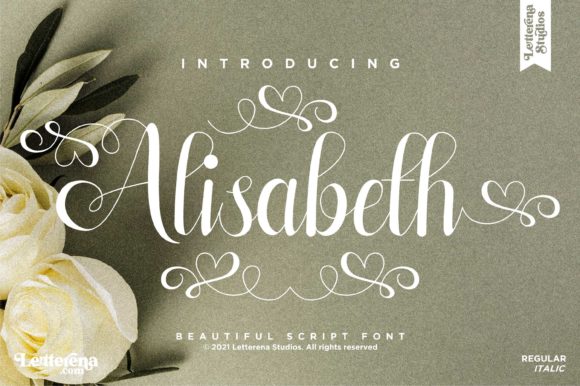
The Quest for the Perfect Font: How Alisabeth Font Stole My Heart
I’ll never forget the time I was working on a project for a client who wanted a romantic, whimsical feel. I had spent hours scouring the internet for the perfect font, but nothing seemed quite right. That was until I stumbled upon Alisabeth Font. This dazzling handwritten font has a flexible script style that can be used in a wide range of applications, from greeting cards to headlines. In this article, I’ll share my experience with Alisabeth Font, its features, and how to make the most of it in your designs.
An Honest Review of Alisabeth Font
- ✨ Romantic and Whimsical Feel: Alisabeth Font has a unique, hand-crafted look that adds a touch of elegance and romance to any project.
- ✅ PUA Encoded: The font is PUA encoded, making it easy to access all the beautiful glyphs and swashes.
- 💫 Flexibility: Alisabeth Font can be used in a variety of applications, from greeting cards to headlines, and even social media graphics.
While Alisabeth Font is an amazing font, there are a few things to keep in mind:
- ⚠️ Legibility at Small Sizes: Like many script fonts, Alisabeth Font can be a bit tricky to read at small sizes. Make sure to test it out at different sizes to ensure it’s legible for your project.
- 🤔 Overuse of Swashes: With so many beautiful swashes to choose from, it’s easy to get carried away. Be mindful of overusing them, as it can make your design look cluttered.
A Practical Guide to Using Alisabeth Font
The Story Behind Alisabeth Font
Alisabeth Font was designed with the intention of creating a beautiful, handwritten font that captures the essence of romance and whimsy. The designer wanted to create a font that would be flexible and versatile, suitable for a wide range of applications. With its PUA encoding and OpenType features, Alisabeth Font is perfect for designers, crafters, and creative hobbyists who want to add a touch of elegance to their projects.
A: PUA (Private Use Area) encoding is a way of encoding fonts that allows for the inclusion of additional characters and glyphs. This means that Alisabeth Font has a wide range of beautiful glyphs and swashes that can be easily accessed.
Q: Is Alisabeth Font suitable for body text?
A: While Alisabeth Font is beautiful, it’s not ideal for body text. It’s best suited for headlines, titles, and other display text.